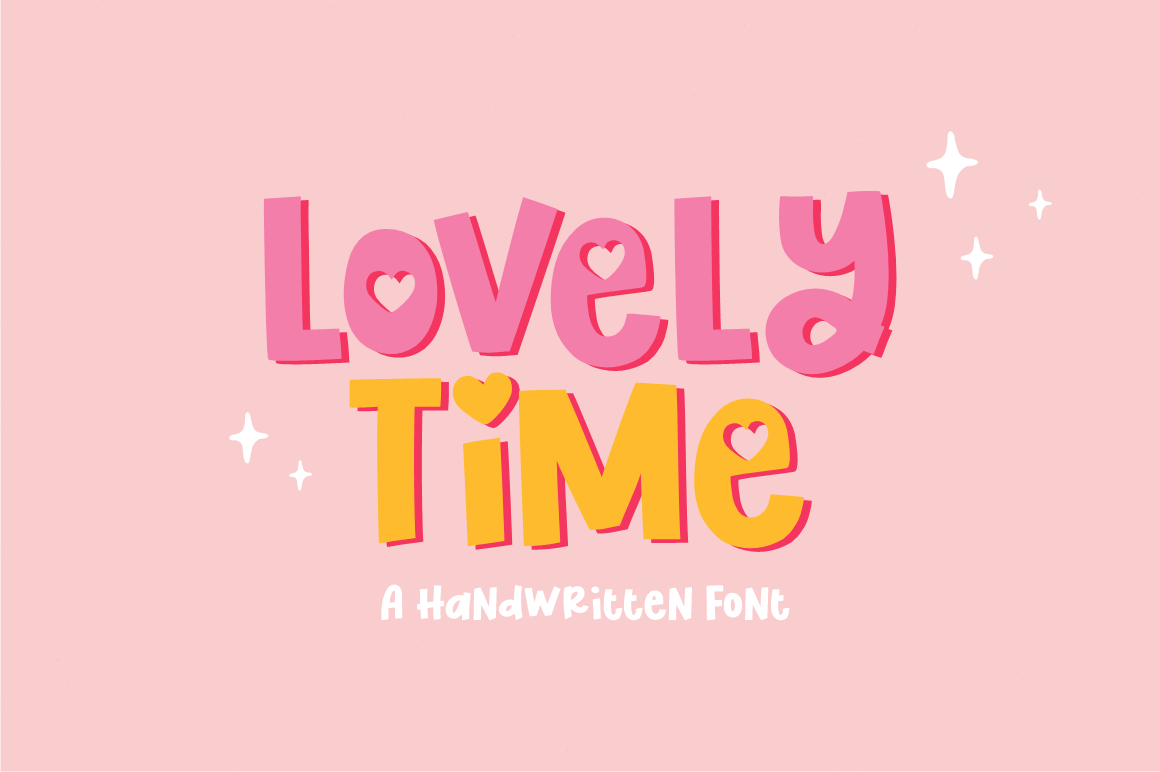
Lovely Time - Fun Display Font Font
About Lovely Time - Fun Display Font
Lovely Time is a playful and cute typeface perfect for any quirky design work! These cute fonts are made by hand and with great love! It is suitable for you to use in making t-shirt design, quote, labels, packaging, logotype, mugs, and more!